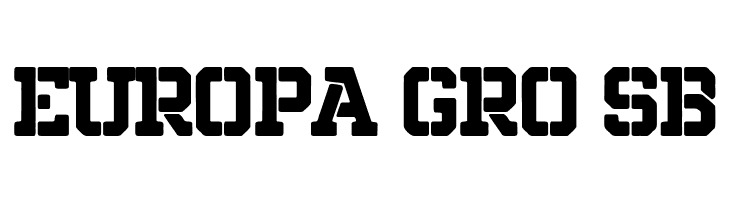
A bold, stencil-style font with a military-inspired design.
A dynamic handwritten font with fluid, slightly irregular strokes and a playful vibe.
A decorative and modern font with ornate uppercase and clean lowercase characters.
A whimsical and decorative script font with playful swirls and loops.
A dynamic and elegant script font with fluid, cursive strokes.
A dynamic and elegant script font with a modern calligraphic style.
A modern, elegant font with clean lines and a sophisticated style.
A dynamic and elegant script font with fluid, continuous strokes.
A dynamic and elegant script font with a modern, handwritten style.
A decorative and modern font with whimsical uppercase and straightforward lowercase letters.